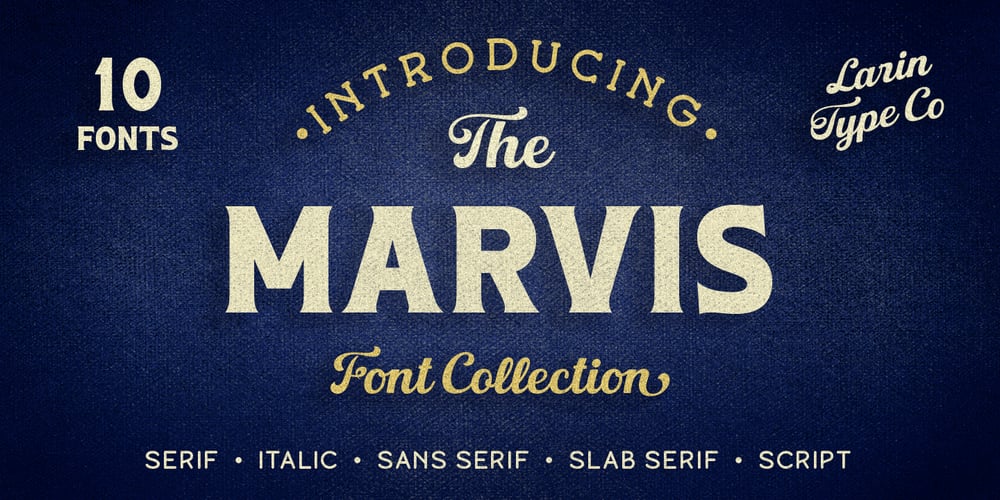
Marvis Font Family was designed by Pavel Larin and published by Larin Type Co. Marvis contains 10 styles and family package options. Marvis is a vintage collection of fonts that includes serif, true italic, script, sans serif and slab serif each of them has two style – Clean and Rough style. Also for the script includes Alternates and Swashes. This collection was inspired by vintage signage, logos and this fonts are perfectly suitable for any vintage project and will make it at a high level. This fonts is easy to use has OpenType features.Font collection includes: Full Capital alphabet A-Z for Sans and Slab Full alphabet Uppercase and Lowercase A-z for Serif, Italic, Script Numbers, fractions for Serif, Italic, Script, Sans and Slab Punctuation and symbols for Serif, Italic, Script, Sans and Slab Alternates for Uppercase for Serif and Script Alternates for Lowercase for Script Swashes for Script Ligatures for Serif and Italic “Tb, Th, Tk, Tl, ct, fb, ff, ffi, fi, fh, fk, fl, st”